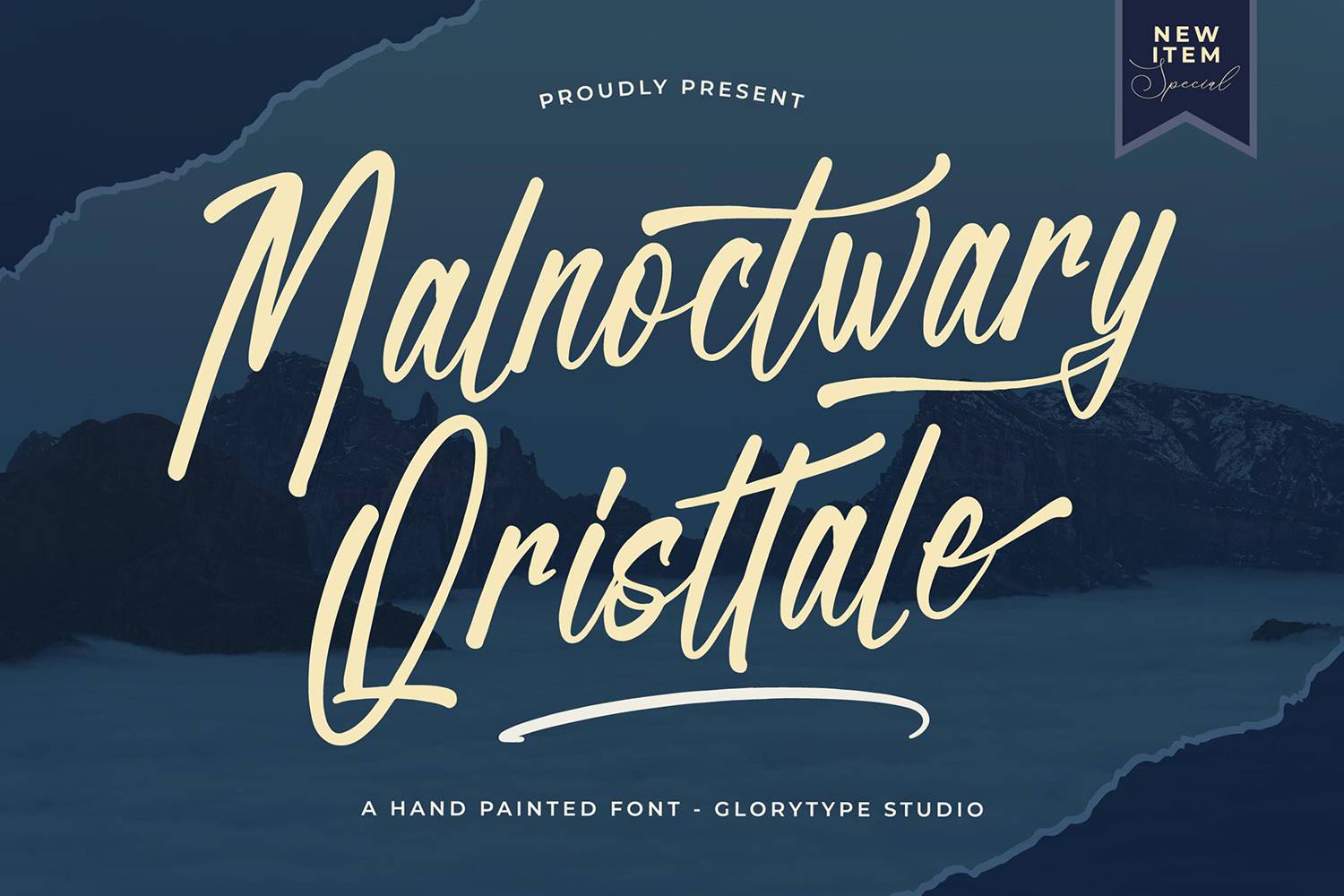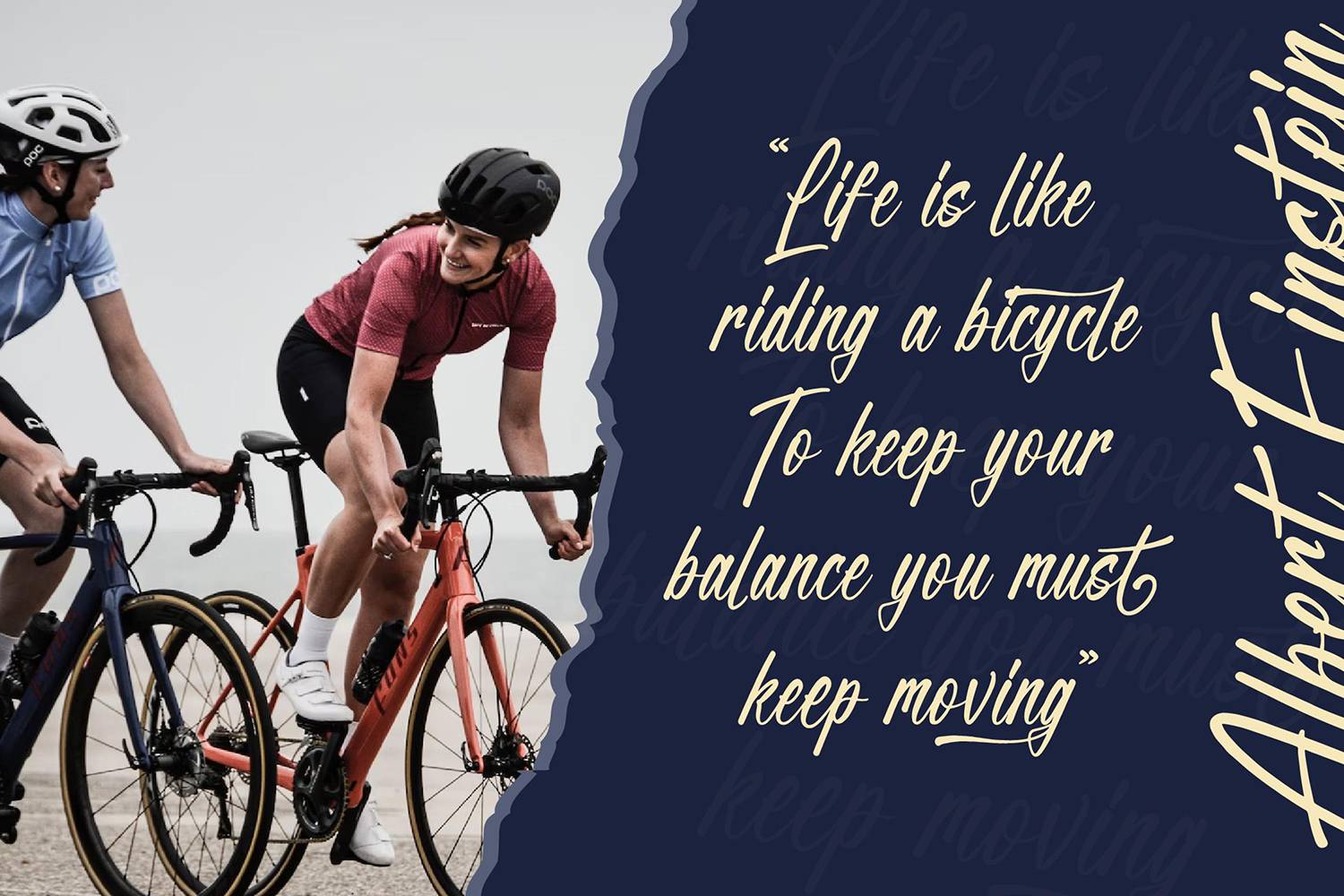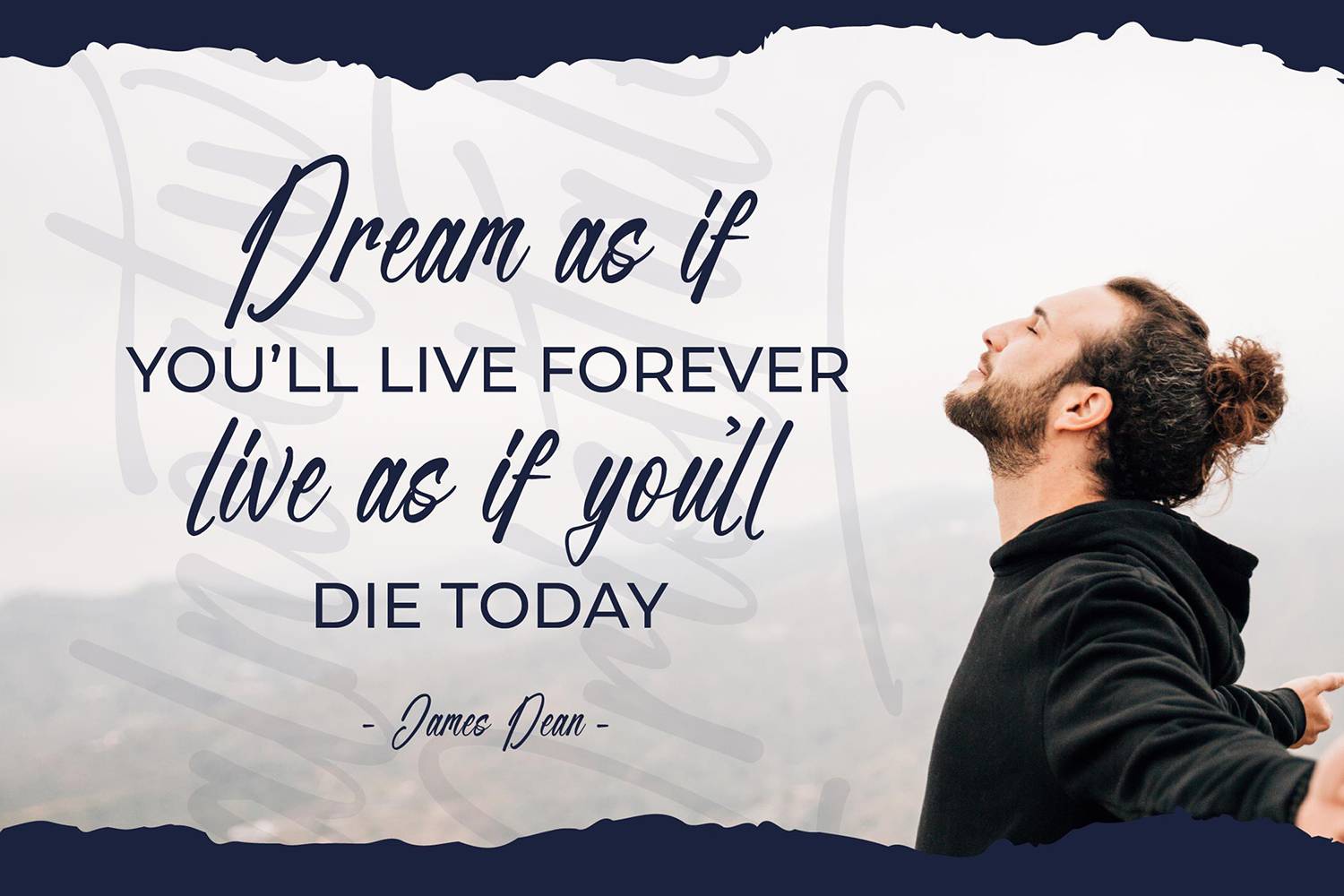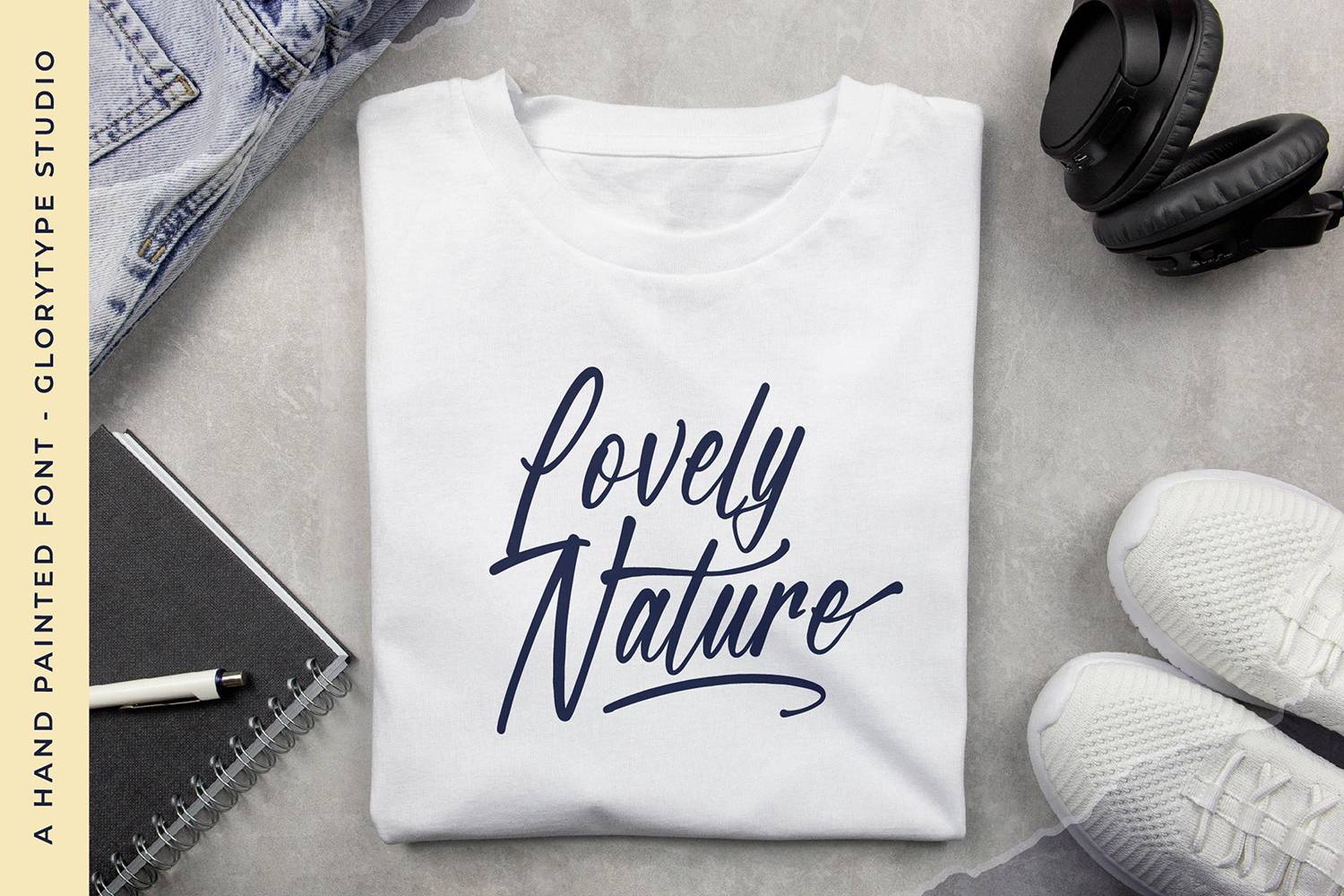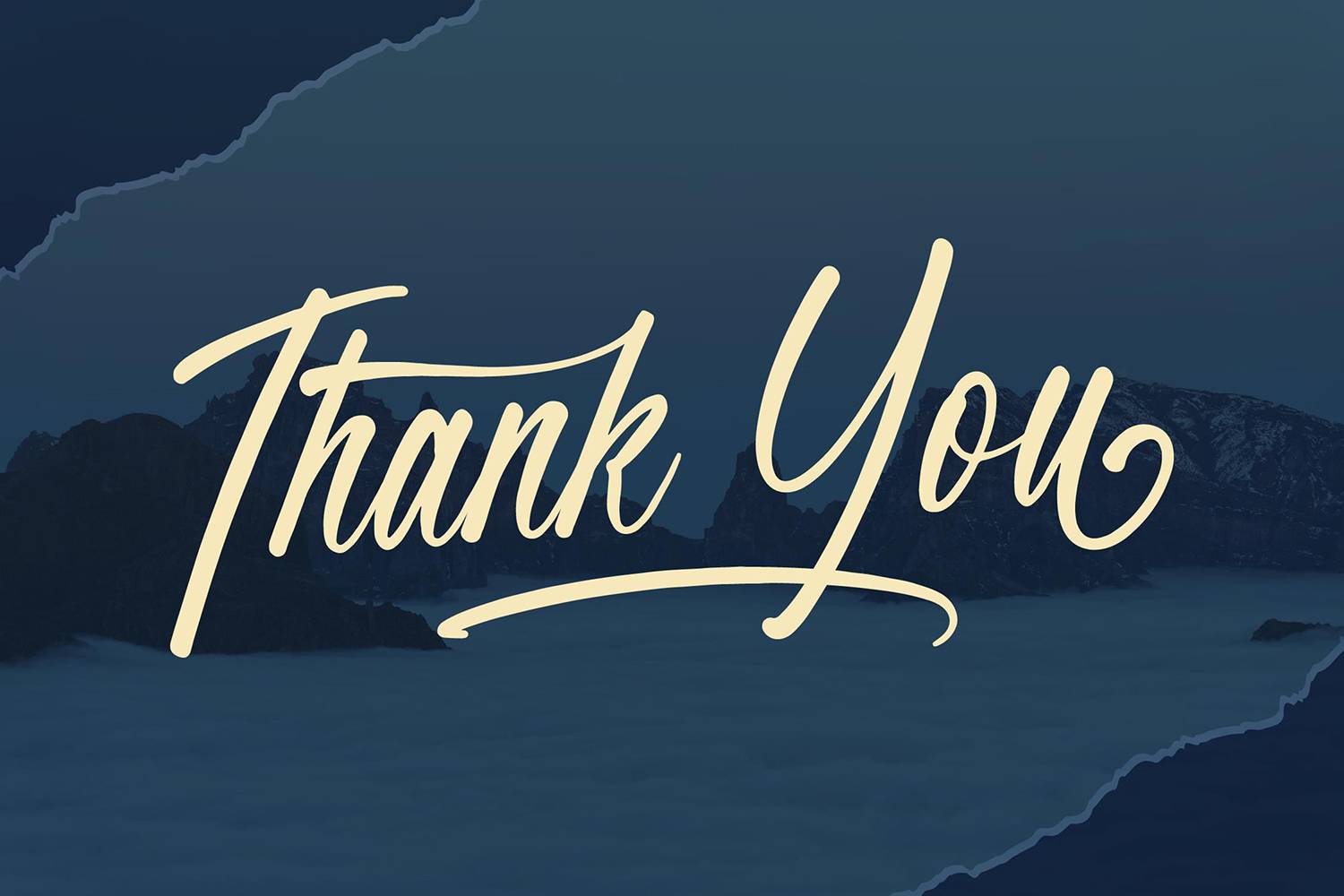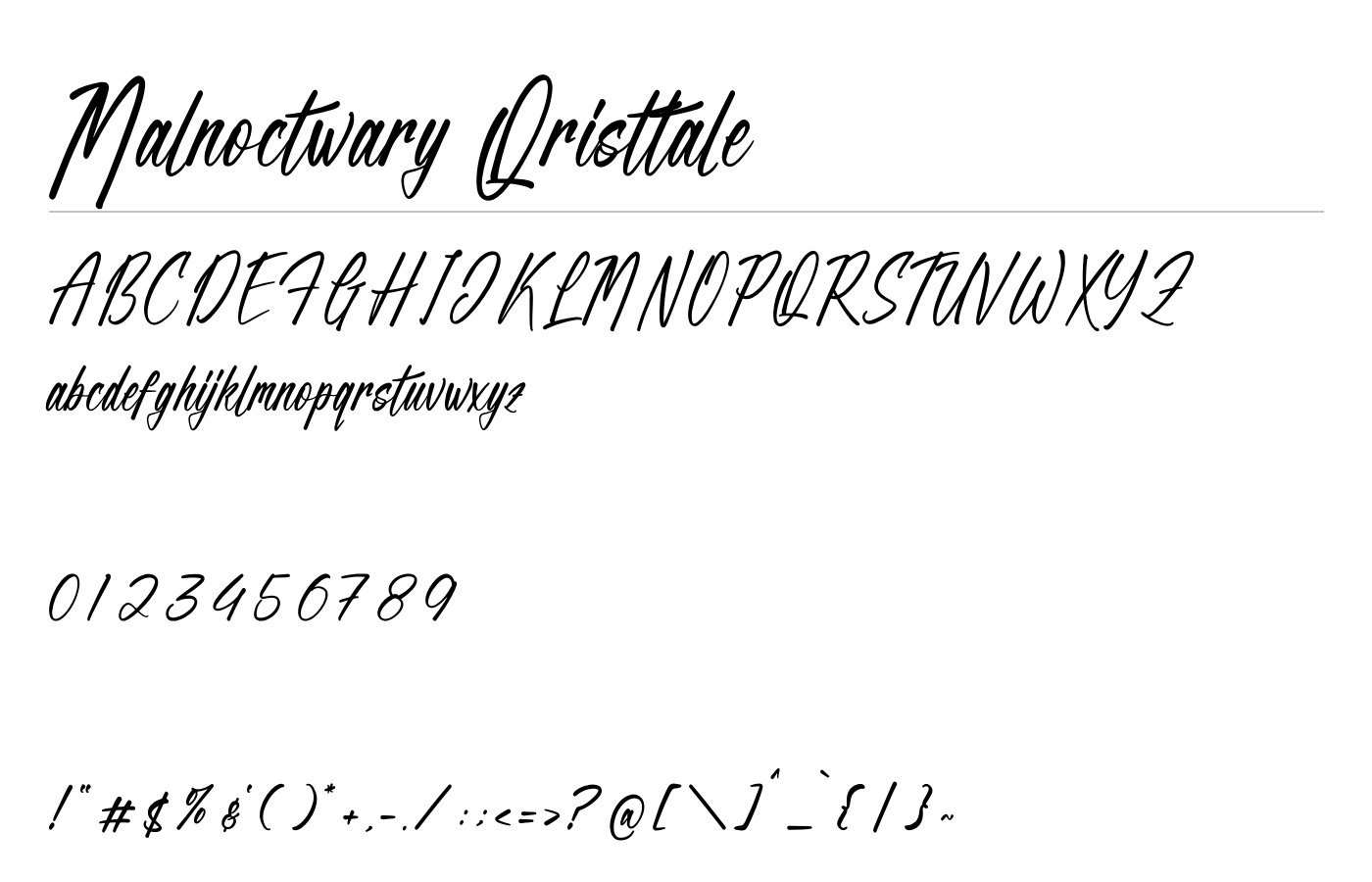
Malnoctwary Qristtale is a stylish, handwritten script font with a modern and elegant feel. Its slender, flowing characters feature a mix of smooth curves and sharp angles, creating a refined yet expressive look that works beautifully in creative branding, invitations, and stylish headlines. This font adds a personal, artistic touch wherever a sophisticated yet approachable vibe is desired.
Malnoctwary Qristtale Font
About Malnoctwary Qristtale Font